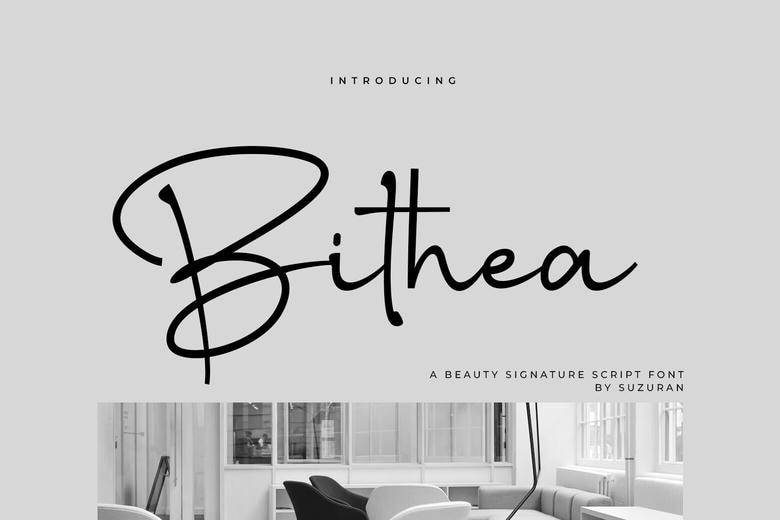
Bithea Font
Bithea is a contemporary script font but with a touch of luxury and beautiful fluidity in it, which can add an ultra-luxurious touch to any of the designs. It has elegant and streamlined letterforms but remains very legible, thus you can use it in logos, branding, product packaging, wedding invitations, social media content, and other commercial initiatives.
Not simply typography, Bithea is a visual asset that takes your design up to a different dimension, something elegant and something that stays put. Turn any ideas into pieces of art with Bithea the script font that makes all details shine.
Bithea Handwritten Script Font